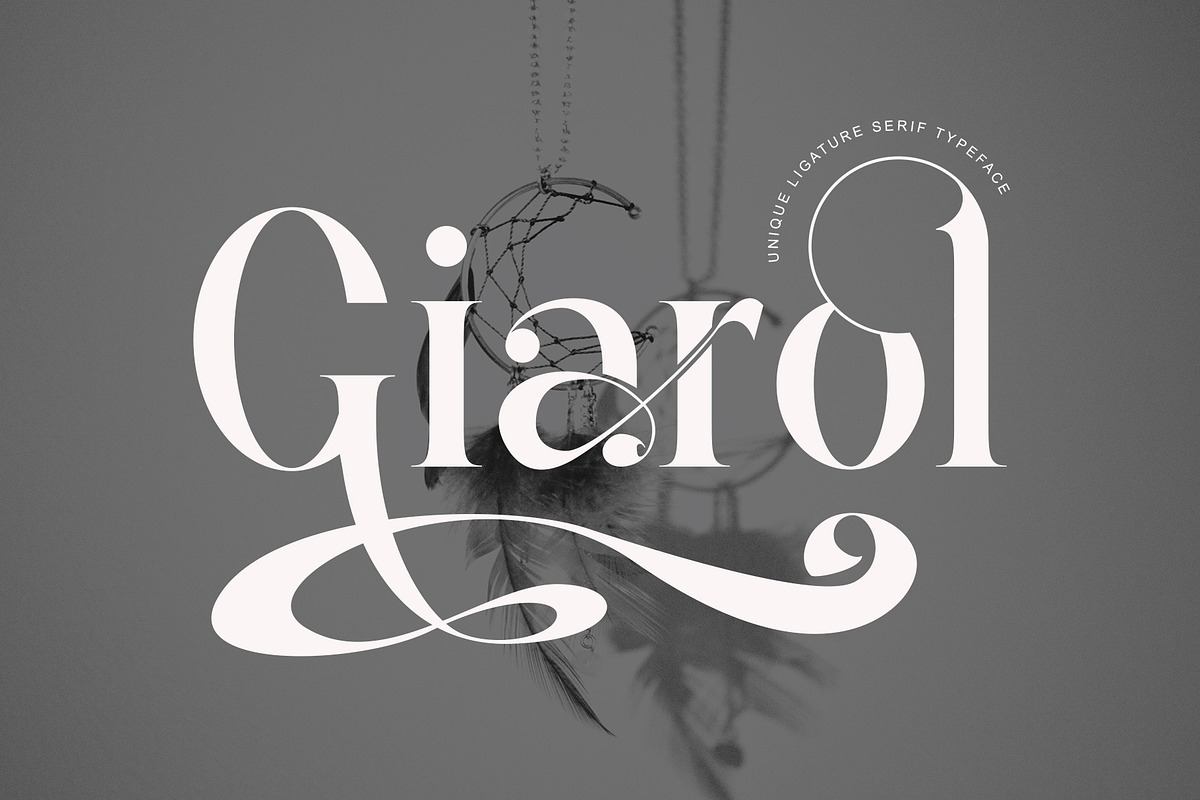
Giarol Serif Type Face Font is perfect for editorial design, book publishing, academic journals, newspaper layouts, magazine typography, professional reports, literary publications, and sophisticated document design.
What makes Giarol Serif Type Face Font so exciting is its exceptional readability combined with timeless elegance that creates the perfect foundation for extended reading and professional publishing applications. This classical serif typeface features beautifully proportioned letterforms with traditional serif construction that enhances text flow and reading comprehension. The font's scholarly appearance and professional character make it ideal for publications that need to communicate authority, credibility, and intellectual sophistication.
The Giarol Serif Type Face Font family includes regular, italic, bold, and bold italic variations, along with small caps and extended character sets that provide designers with complete typographic systems for complex editorial and publishing projects.
Giarol Serif Type Face Font Free Download offers designers access to premium editorial typography that perfectly balances classical tradition with contemporary publishing requirements. This versatile typeface excels in applications where readability and scholarly presentation are paramount, making it ideal for publishing houses, educational institutions, research organizations, and professional services. The font's academic character makes it particularly suitable for universities, law firms, medical publications, and literary journals requiring authoritative typography.
The carefully engineered letterforms of Giarol Serif Type Face Font ensure optimal reading comfort while maintaining elegant appearance across all text sizes and applications. Each character demonstrates classical serif principles that enhance word recognition and reading flow, creating text that performs excellently in both print and digital reading environments. This reliability makes the font valuable for extensive text applications where reader comfort is essential.
For professional publishing and editorial design, Giarol Serif Type Face Font provides the perfect solution for organizations requiring superior typography that enhances content credibility and reading experience. The font's classical character allows it to communicate knowledge and authority while maintaining excellent performance across print, digital, and educational applications where professional serif typography supports effective information communication and scholarly presentation.